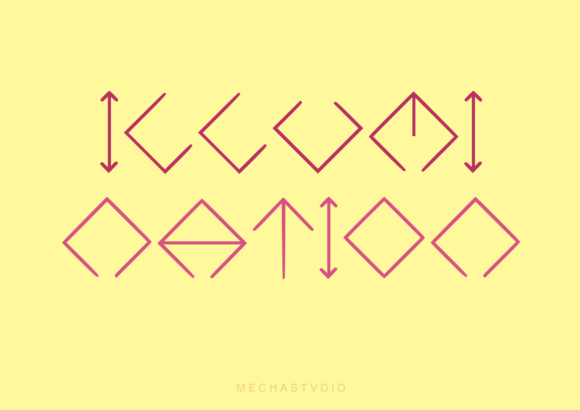
Introduction to Illuminate Font
Have you ever been working on a creative project, pouring your heart and soul into it, and then suddenly, the perfect design element pops up in your mind? For designers, this moment is pure magic. It’s the moment when everything comes together, and the project takes on a life of its own. For me, that moment happened when I stumbled upon the Illuminate Font.
This stunning font has been a game-changer for me, and I’m excited to share it with you. The Illuminate Font is a simple, modern, and unique decorative font that is perfect for any project. Its unique style has the potential to transform your designs into a true standout, making it a valuable addition to any designer’s toolkit.
Key Features of Illuminate Font
- High-quality design resource ideal for creative projects, offering a unique and elegant aesthetic.
- Includes a range of glyphs and characters, making it suitable for a variety of creative applications.
- Designed with a focus on readability and legibility, making it an excellent choice for both digital and print-based creative projects.
Honest Review: Illuminate Font
As a designer, I’m always on the lookout for high-quality design resources that can elevate my creative projects. Recently, I had the chance to work with the Illuminate Font, and I’m excited to share my honest review with you.
- ✨ High-quality typography: The Illuminate Font features crisp, clean lines and a beautiful transparent background that makes it perfect for overlaying on images.
- ✨ Versatility: This font is suitable for a wide range of creative projects, from digital design to print materials.
- ⚠️ Limited font family: While the Illuminate Font is beautiful, it’s limited to a single family, which might not be ideal for projects requiring multiple font styles.
- ⚠️ Not ideal for large text: Due to its elegant and minimalist design, the font might not be the best choice for large text or headings.
Overall, I’m impressed with the Illuminate Font’s quality and versatility. While it has some limitations, it’s an excellent addition to any designer’s toolkit, especially for those looking for a high-quality font for free.
Illuminate Font
For the best results, use the Illuminate Font with a transparent background to create a seamless design experience. Experiment with different font sizes and styles to add depth and visual interest to your project.
The Illuminate Font is perfect for creating eye-catching headlines, titles, and captions for a variety of creative projects, including infographics, social media graphics, and marketing materials.